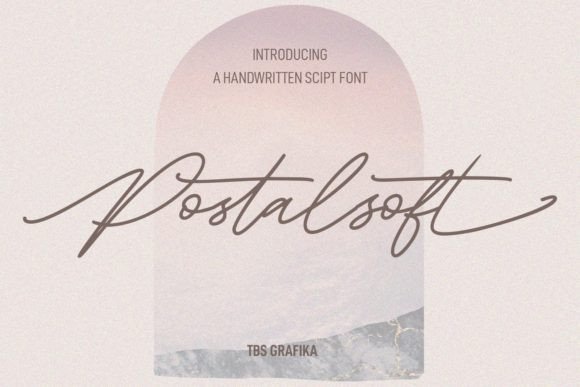
Immerse yourself in the enchanting realm of Postalsoft Font, a script font that exudes elegance and captivating charm. This masterpiece, carefully crafted by tbs.grafika, is a symphony of flowing strokes and graceful curves, capturing the essence of handwritten artistry. With its expressive and stylish nature, Postalsoft Font transforms your words into works of art, leaving an indelible mark on the hearts and minds of your audience.
Journey through a world of creative possibilities with Postalsoft Font. Its versatility knows no bounds, seamlessly adapting to a myriad of design projects. Elevate your wedding invitations with a touch of timeless romance, add a personal touch to thank-you cards, or let your quotes come alive with an air of sophistication. From greeting cards to logos, business cards to social media posts, Postalsoft Font effortlessly enhances your designs, captivating your audience with its undeniable allure.
Unleash your creativity and let your imagination soar with Postalsoft Font. Its intricate details and meticulously crafted characters invite you to explore a world of boundless possibilities. Whether you're a seasoned designer or just starting your creative journey, Postalsoft Font empowers you to create designs that resonate with your unique style and vision. Its intuitive nature makes it accessible to all, allowing you to effortlessly transform your ideas into stunning visual masterpieces.
With Postalsoft Font, you'll discover a font that transcends ordinary expectations. Its ability to capture the essence of handwritten lettering adds a touch of authenticity and warmth to your designs. Imagine your wedding invitations adorned with the delicate strokes of Postalsoft Font, conveying your love and commitment in a way that words alone cannot express. Or envision your business cards leaving a lasting impression, exuding professionalism and creativity that sets you apart from the rest.
Step into the world of Postalsoft Font and unlock a world of creative possibilities. Let your designs flourish with the elegance and charm of this extraordinary script font. Its versatility and expressive nature will ignite your imagination and empower you to create designs that leave a lasting legacy. Embrace the allure of Postalsoft Font and embark on a journey of creative exploration that will redefine your design horizons.